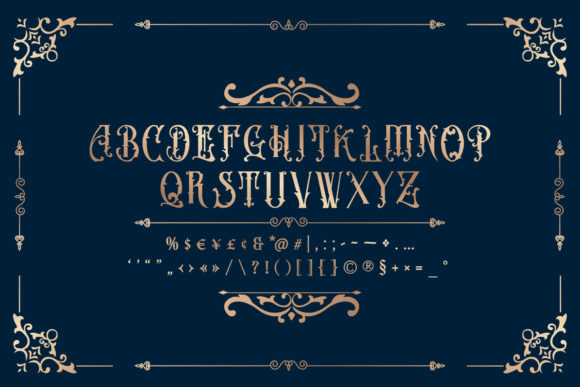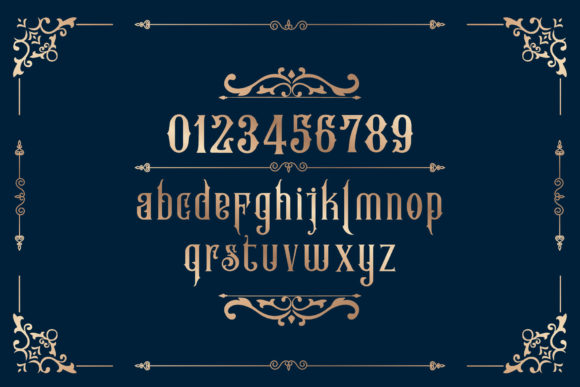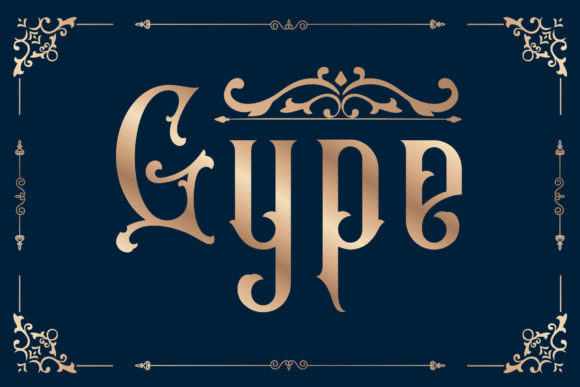
Gype Font: Elevate Your Designs with a Touch of Vintage Victorian Elegance
In the realm of typography, few fonts capture the essence of Victorian elegance as perfectly as Gype Font. This vintage serif font is an exquisite tribute to the classic typography of the Victorian era, bringing a cool and unique flair to any design project. Whether you’re a designer looking to add a touch of sophistication to your work or a crafter seeking to infuse your creations with a sense of history, Gype Font is an excellent choice.
The Inspiration Behind Gype Font
Gype Font draws its inspiration from the rich typographic heritage of the Victorian era, a time when letterpress printing and ornate typography were at their peak. The font’s design is characterized by its intricate serifs, elegant lines, and classic proportions, which evoke the nostalgia and grandeur of a bygone era. Each letterform has been carefully crafted to reflect the ornate and sophisticated style that was synonymous with Victorian typography.
Perfect for Bold and Vintage Victorian Concept Designs
Gype Font is particularly well-suited for bold and vintage Victorian concept designs, where its classic charm and unique character can truly shine. Imagine using it for a vintage tattoo studio logo, where the font’s ornate details and elegant lines can add a touch of sophistication and allure. Alternatively, it could be used for a barbershop logo, where its vintage flair can evoke a sense of tradition and heritage.
Beyond Logos: Exploring Other Creative Applications
While Gype Font is undoubtedly perfect for logos, its versatility extends far beyond. It can be used to add a touch of vintage elegance to a wide range of creative projects, including:
• Alcohol labels: Gype Font’s classic charm and sophistication make it an excellent choice for wine labels, craft beer labels, or any other type of alcohol packaging.
• Packaging design: Add a touch of Victorian elegance to your product packaging with Gype Font, perfect for luxury goods, cosmetics, or gourmet food products.
• Stationery and invitations: Create beautiful and unique stationery, invitations, or greeting cards with Gype Font, perfect for special occasions or formal events.
• Web design: Use Gype Font to add a touch of vintage sophistication to your website, perfect for blogs, portfolios, or e-commerce sites with a vintage or luxury theme.
Why Choose Gype Font?
So why choose Gype Font for your next creative project? Here are just a few compelling reasons:
• Unique and distinctive: Gype Font’s vintage charm and unique character will set your designs apart from the crowd.
• Highly versatile: Gype Font can be used for a wide range of creative projects, from logos and packaging to stationery and web design.
• Elegant and sophisticated: Gype Font’s classic lines and intricate serifs evoke a sense of elegance and sophistication, perfect for luxury brands or high-end products.
• Easy to read: Despite its ornate details, Gype Font remains highly legible, making it perfect for body text or longer forms of content.
In conclusion, Gype Font is a vintage serif font that offers a unique and elegant solution for designers and crafters looking to add a touch of Victorian sophistication to their creative projects. With its intricate serifs, classic lines, and highly legible characterforms, Gype Font is perfect for a wide range of applications, from bold and vintage Victorian concept designs to packaging, stationery, and web design. So why not give Gype Font a try and discover the perfect way to elevate your designs with a touch of vintage elegance?
• Vintage serif font inspired by classic Victorian typography
• Cool and unique, perfect for bold and vintage Victorian concept designs
• Suitable for logos, packaging, stationery, web design, and more
• Elegant and sophisticated, with intricate serifs and classic lines
• Highly legible, even at smaller font sizes